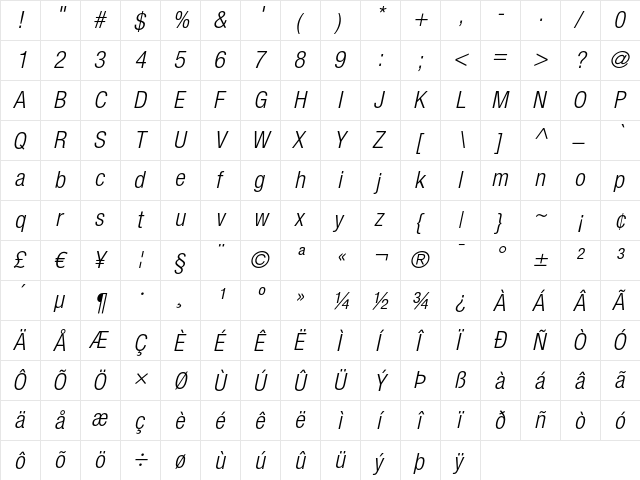
Helvetica Neue LT Regular
Design Context for Helvetica Neue LT Typeface
Helvetica Neue LT takes a measured approach to typography — its balanced proportions and neutral character make it a reliable workhorse for both digital and print work. Its slender proportions lend an understated elegance to any composition.
Pro Tip: Use Helvetica Neue LT in both headline and body roles to test its range before committing to a single application.